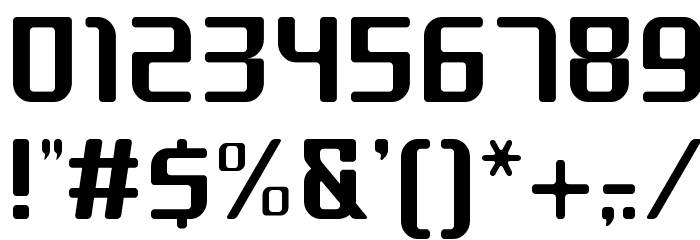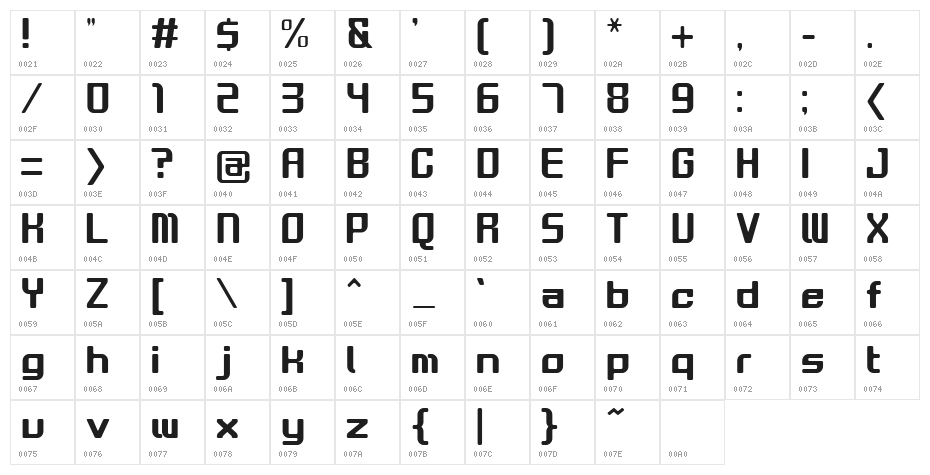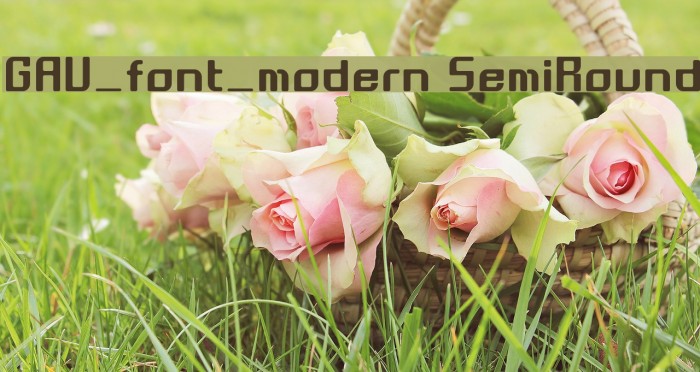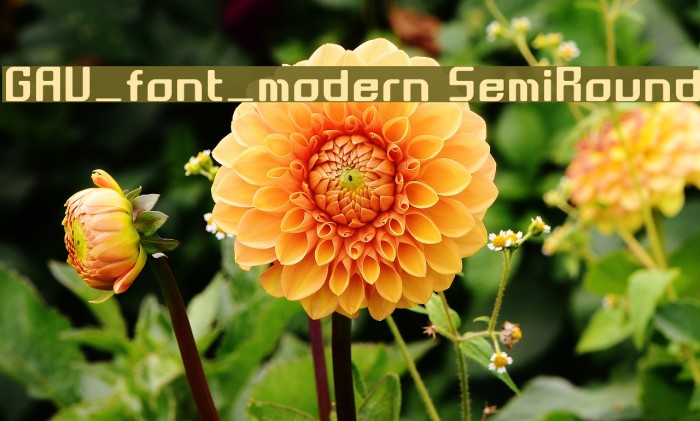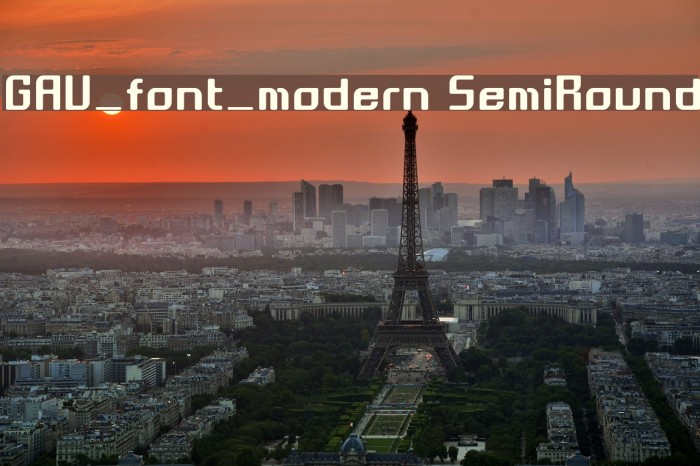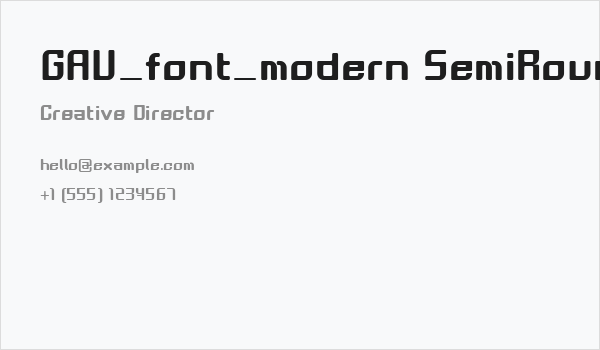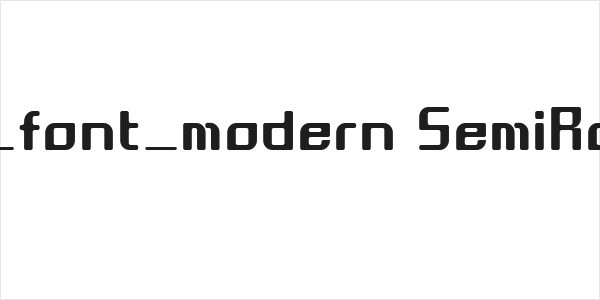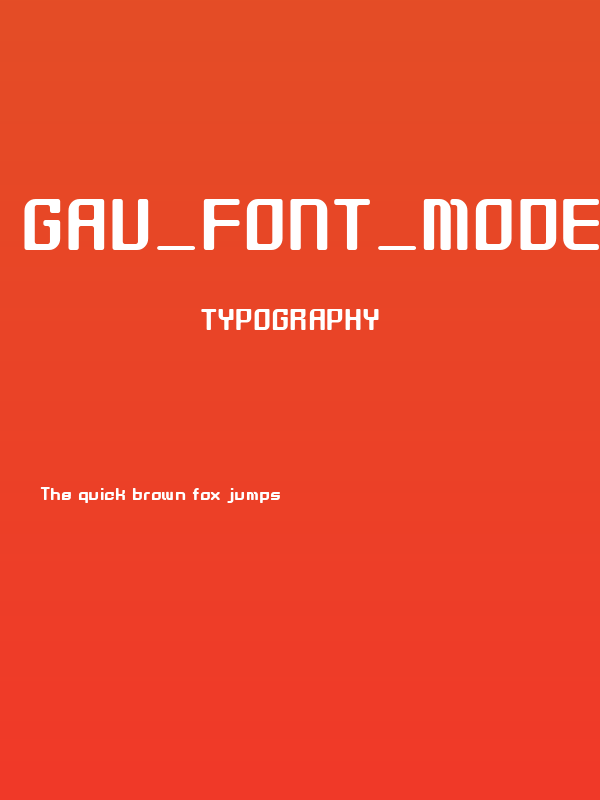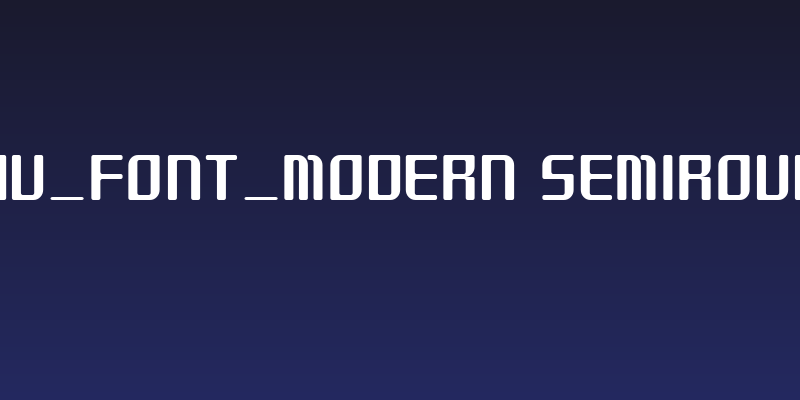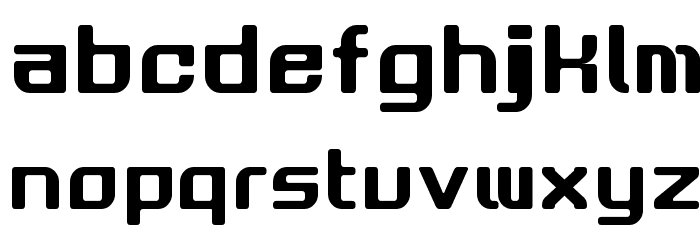
GAU_font_modern SemiRound Font
GAU_font_modern SemiRound Description
This font features a modern, semi-rounded style with a clean and geometric appearance. The uppercase and lowercase letters maintain a consistent height and width, creating a uniform look. The characters have a slightly rounded edge, which softens the overall appearance while retaining a strong, structured form. The numerals and special characters follow the same design principles, ensuring a cohesive look across all elements. This font is highly legible and versatile, suitable for a variety of design applications.
| Use Case | Headlines, Logos, Digital Media |
| Proposed Projects | Ideal for tech branding, modern web design, user interfaces, and digital media projects. |